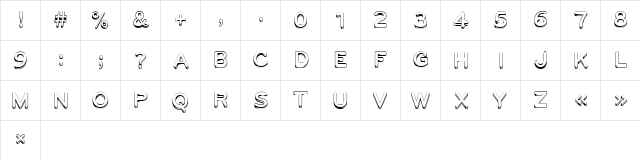
UGO ENGREVED ENGREVED
| Foundry | PYRS Fontlab Ltd. / Made with FontLab |
| Designer | Valeria Santarelli |
Design Context for UGO ENGREVED Typeface
UGO ENGREVED is a composed and adaptable typeface that performs quietly and consistently across a wide range of design contexts.